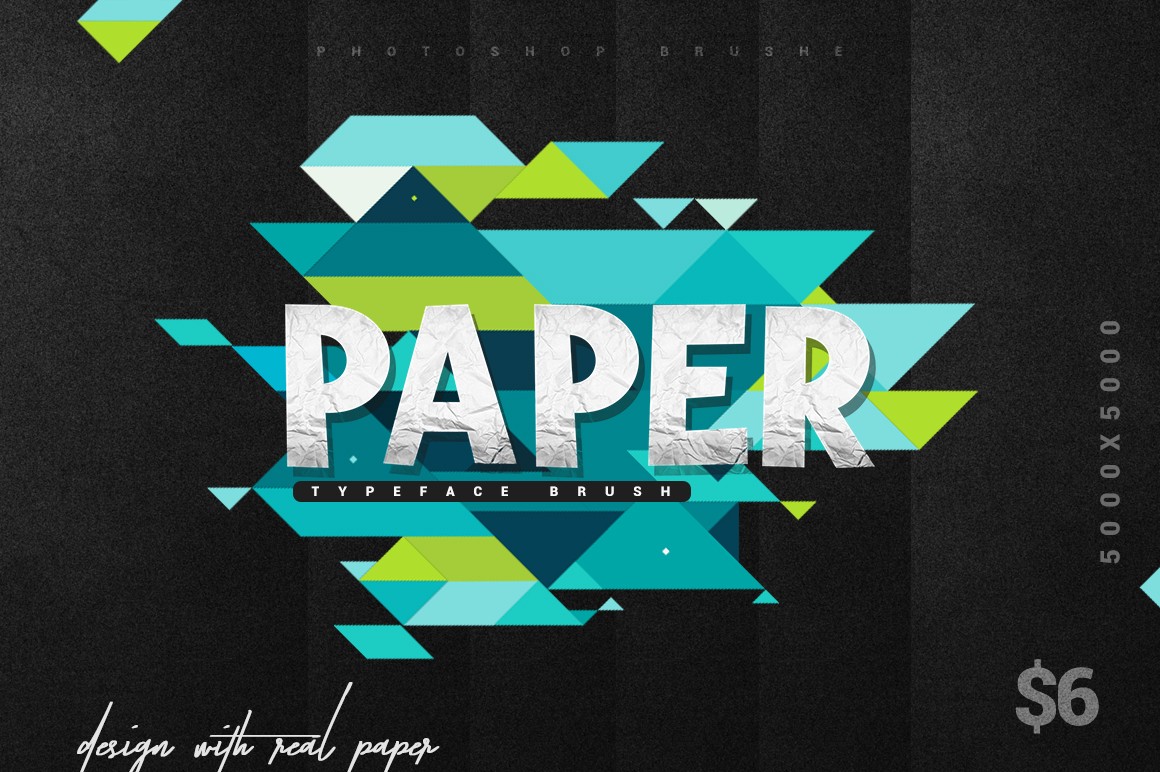
Paper Typeface
Paper is a typeface inspired by crushed paper. It's great for having a bold and attractive title followed by smaller text.
It was made specifically with magazines and posters in mind.